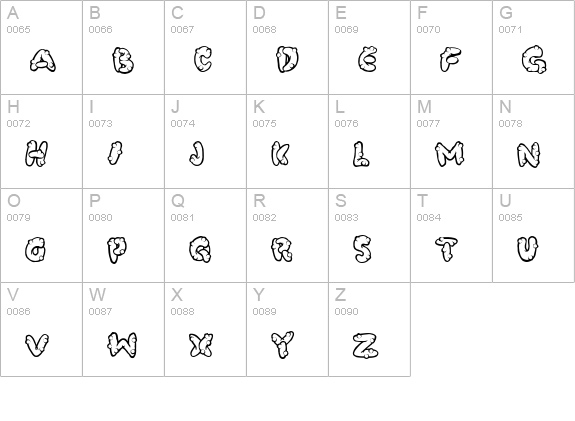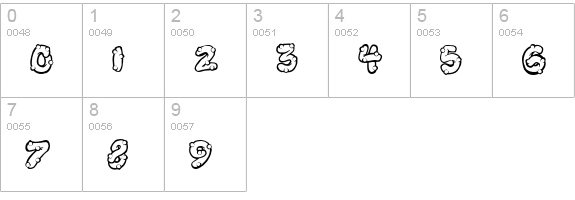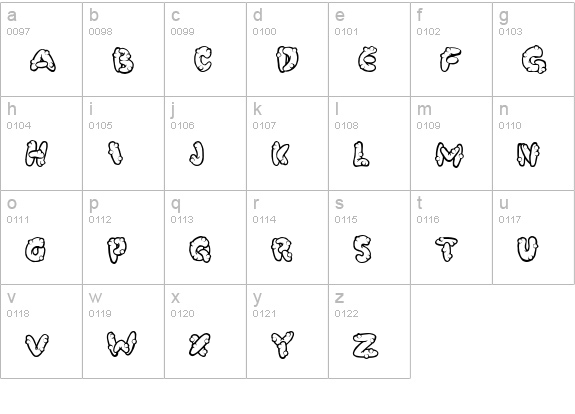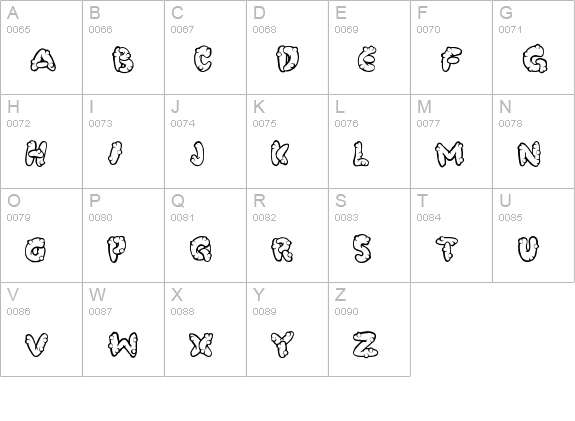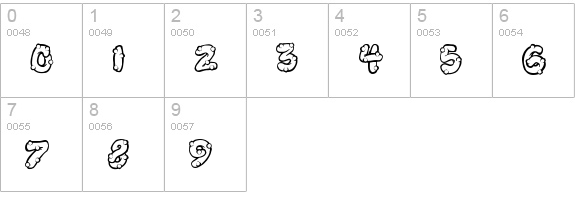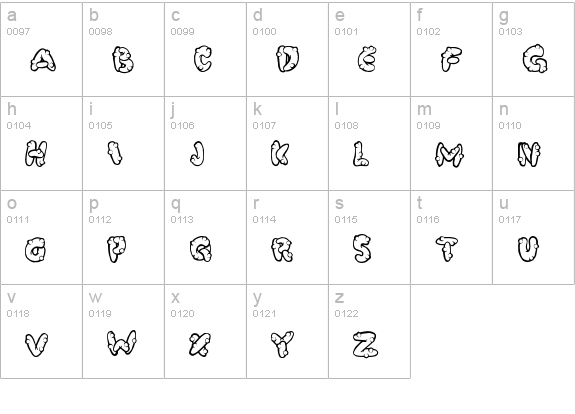
PooCorny Font Details
Introducing PooCorny font, a whimsical and playful typeface that is sure to add a touch of fun to your projects. This unique font features quirky shapes and charming details that make it perfect for a variety of creative applications. PooCorny is designed to bring a smile to your audience and inject a sense of personality into your designs. Best of all, PooCorny font is available for free download at FontsMarket.com. Whether you're working on a project that needs a lighthearted touch or simply want to add some character to your designs, PooCorny is the perfect choice. Download it today and let your creativity shine with this delightful and charming font.